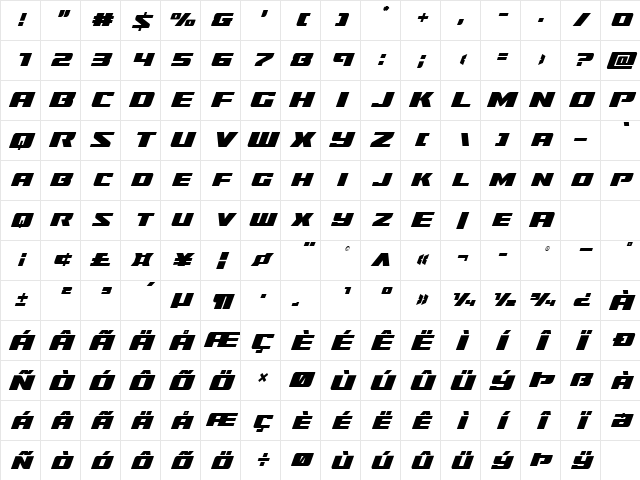
Super Brigade Semi-Condensed Regular
Design Context for Super Brigade Semi-Condensed
Super Brigade Semi-Condensed is a composed and adaptable typeface that performs quietly and consistently across a wide range of design contexts. Its narrow stance lets it pack a punch even in space-constrained designs.